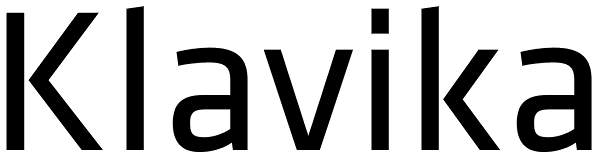
Klavika
Klavika is a flexible family of sans serifs for editorial and identity design. Features such as small caps, true italics, extended language support and multiple numeral styles make Klavika an ideal workhorse typeface.